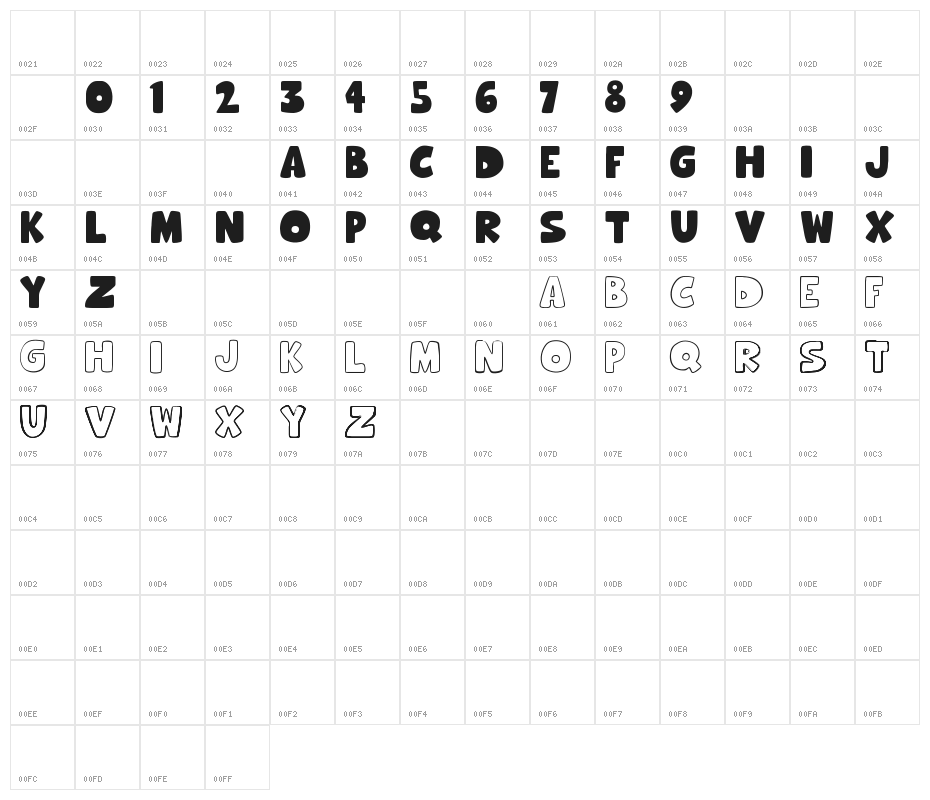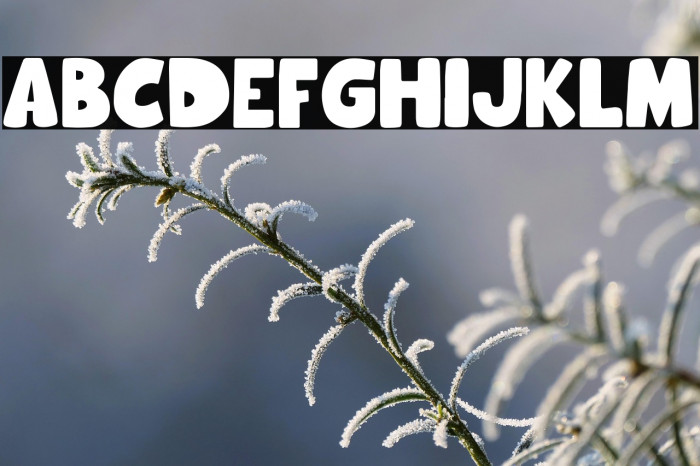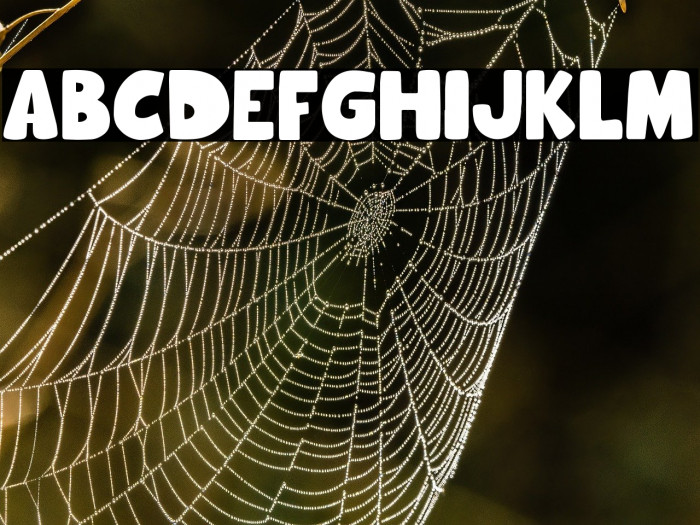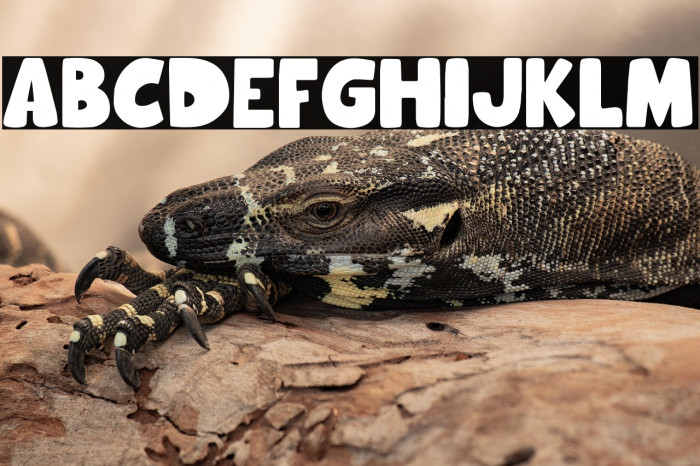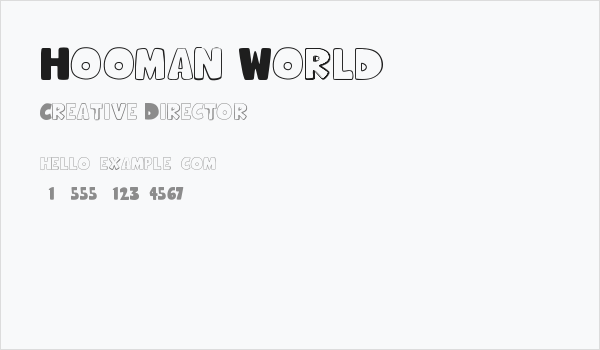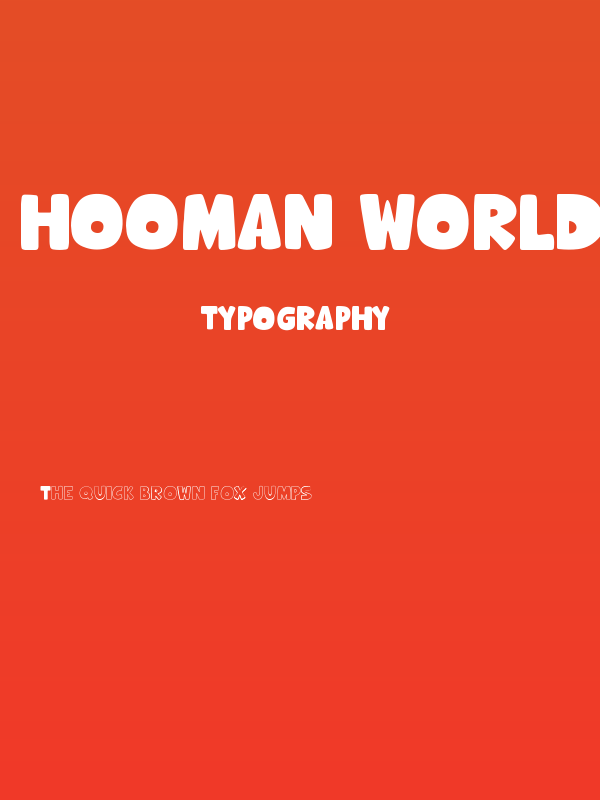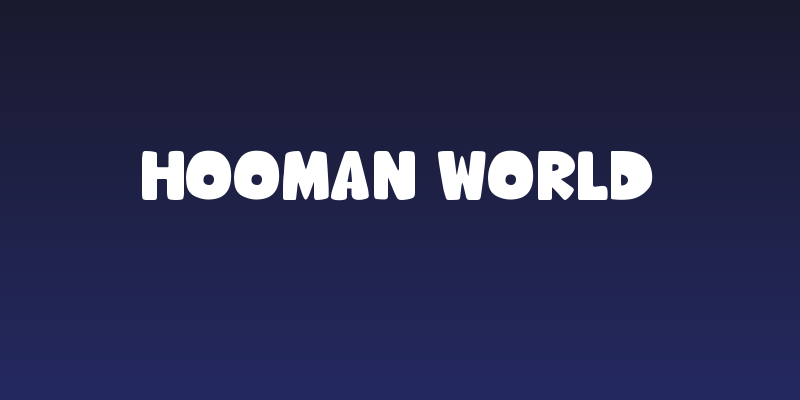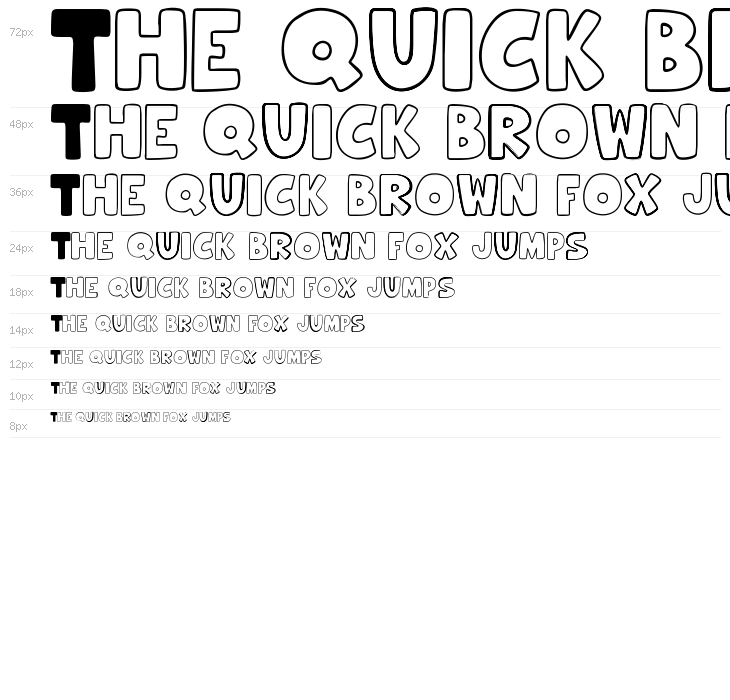
Hooman World Font
Hooman World Description
This playful and bold font features rounded, thick characters that exude a sense of fun and creativity. The uppercase letters are robust and eye-catching, making them ideal for designs that require a strong visual impact. The font includes both filled and outlined versions, adding versatility to its use. The numbers are equally bold and maintain the same playful style, ensuring consistency across different types of content. This font is perfect for projects that aim to convey a lively and energetic tone.
| Overall Style | Playful, Fun |
| Proposed Projects | Ideal for children's books, playful branding, posters, and creative advertising campaigns. |